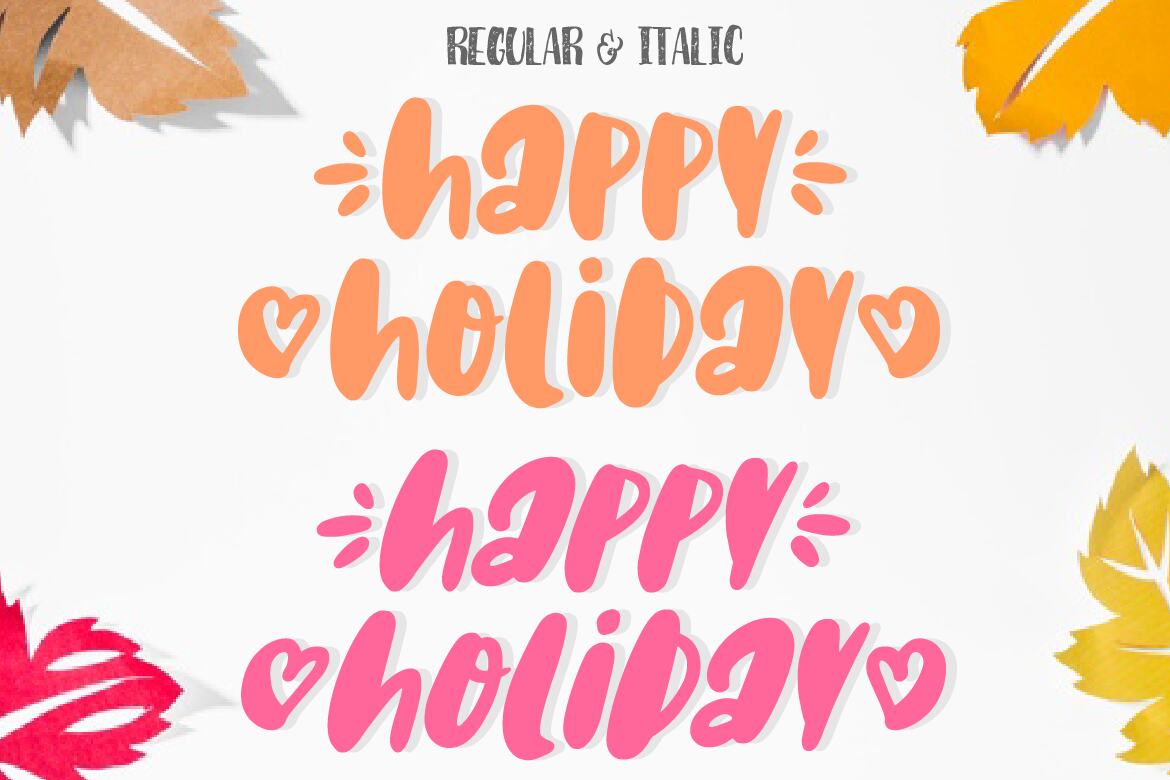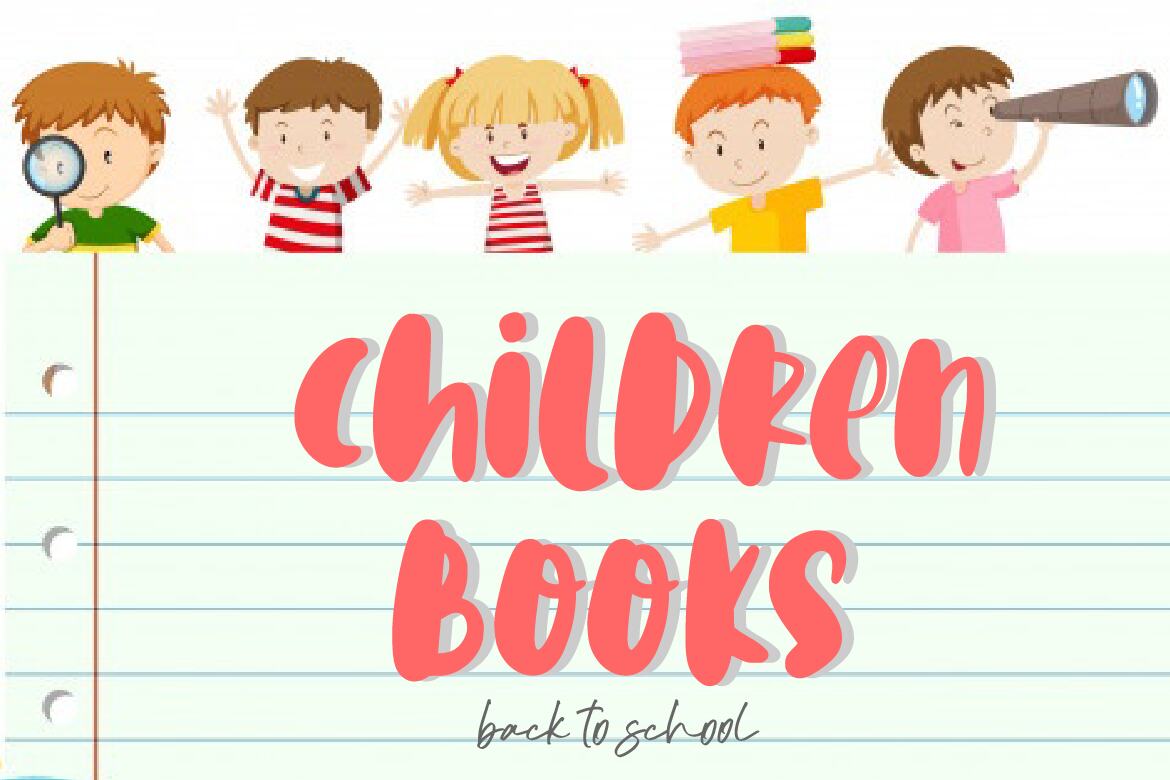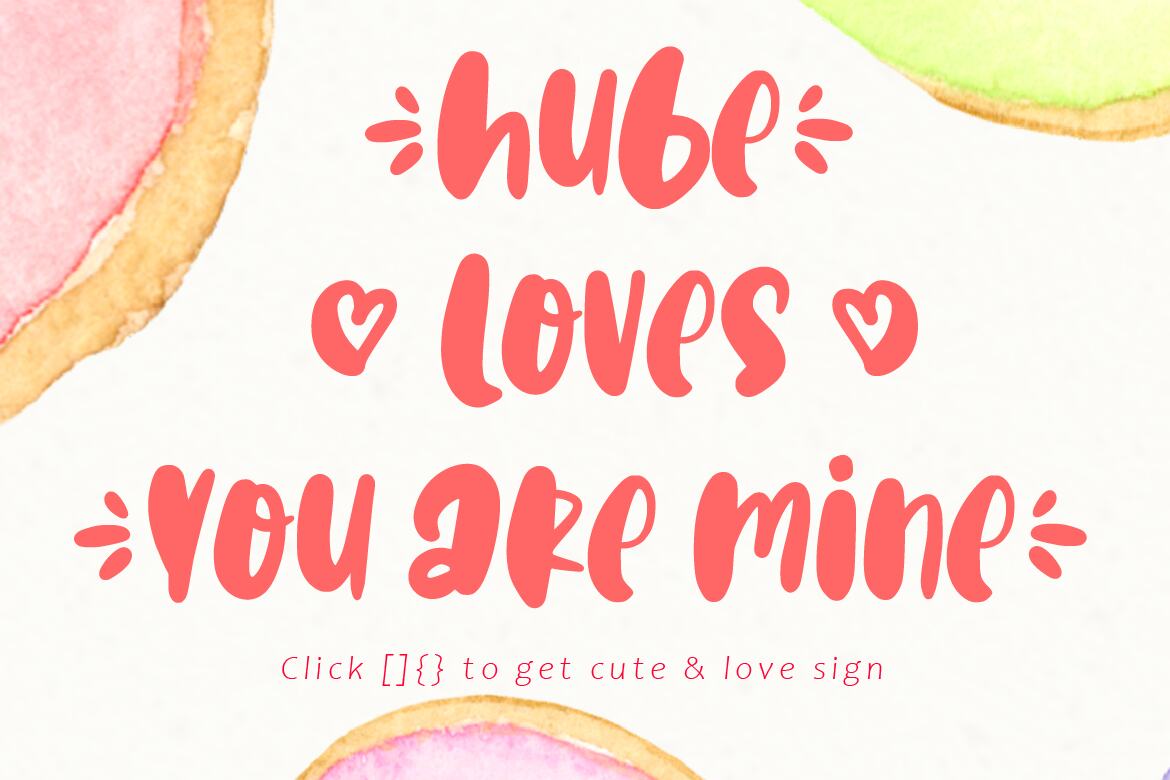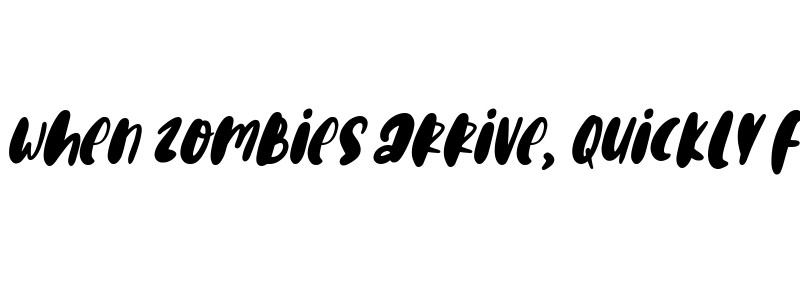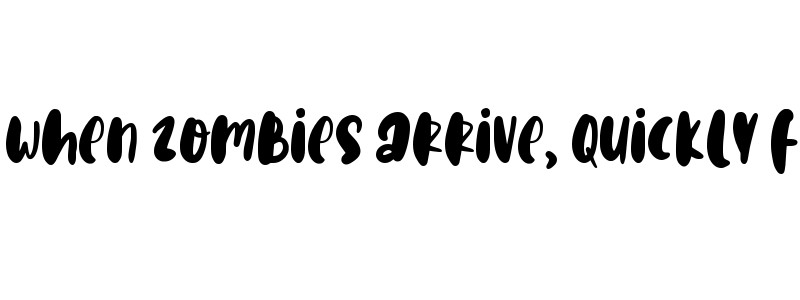
Happy Holiday - Free Font
Happy Holiday is a cute and cartoon like display font. It is ideal for any crafting project, social media post, quotes, headers, decorations and much more.